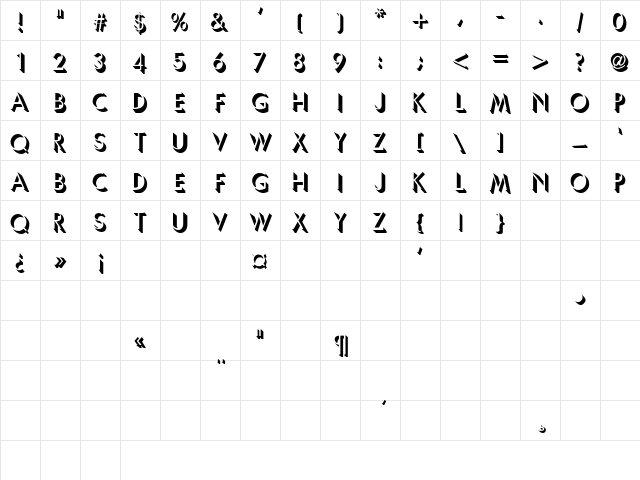
Complete SolaceCondCapsSSK Regular glyph index. Displaying only characters natively supported by SolaceCondCapsSSK Regular font.
SolaceCondCapsSSK is a composed and adaptable typeface that performs quietly and consistently across a wide range of design contexts. Its narrow stance lets it pack a punch even in space-constrained designs.